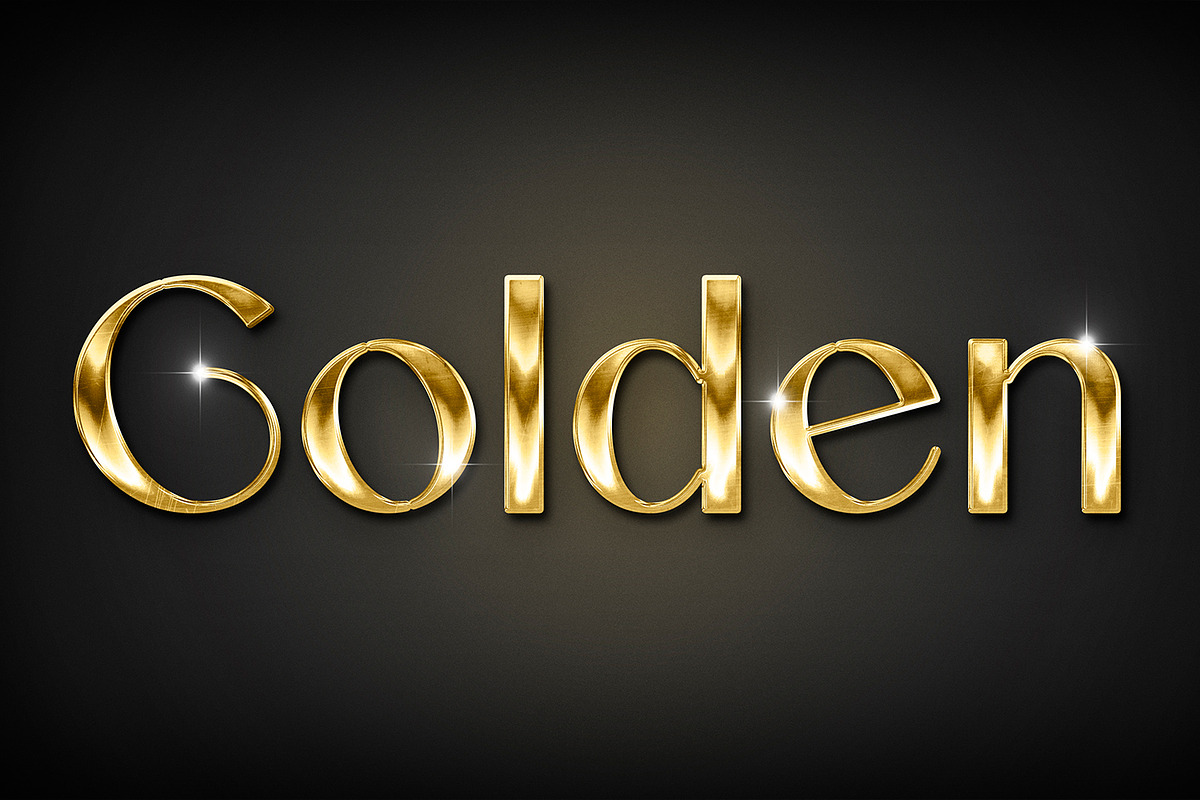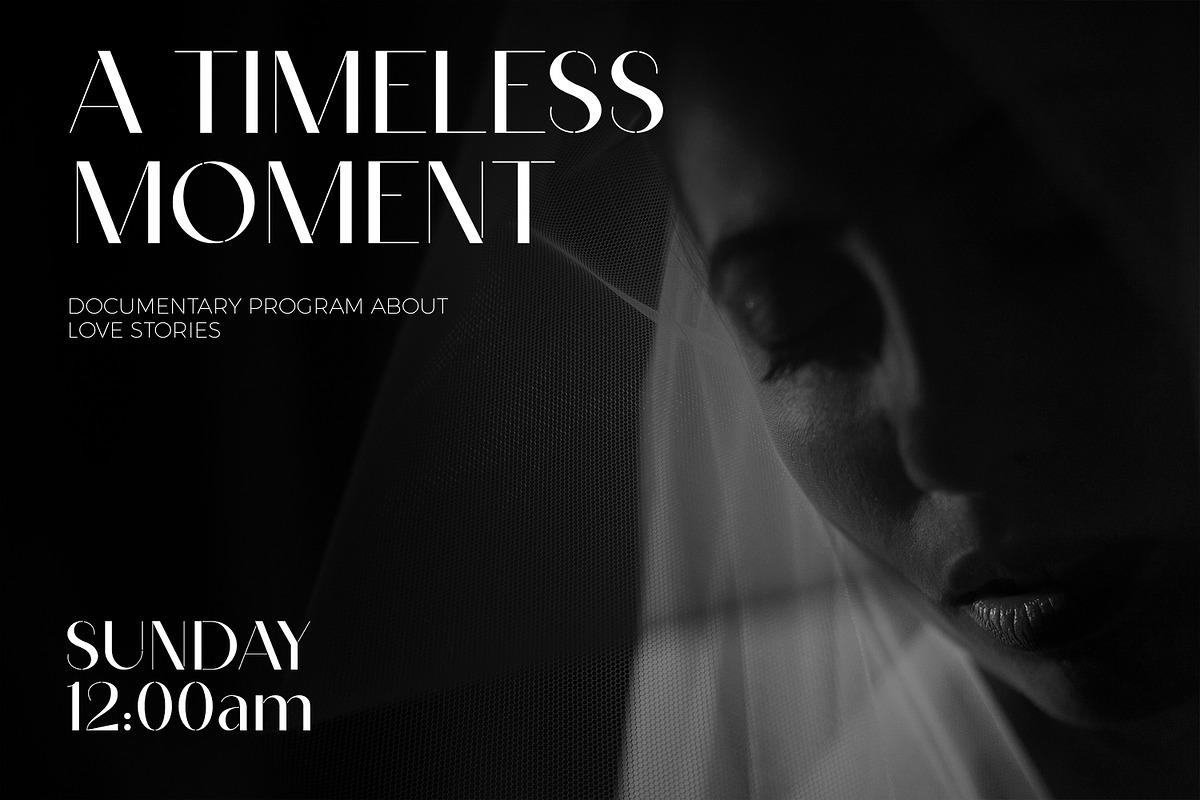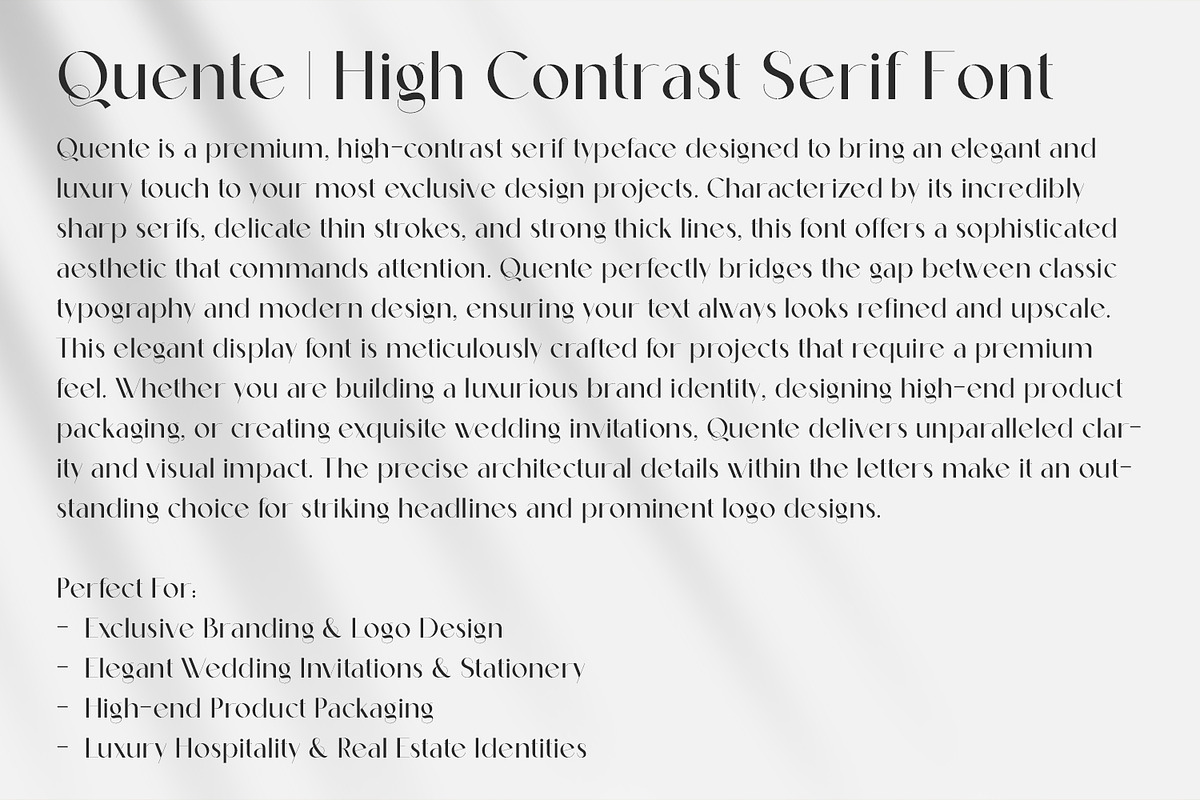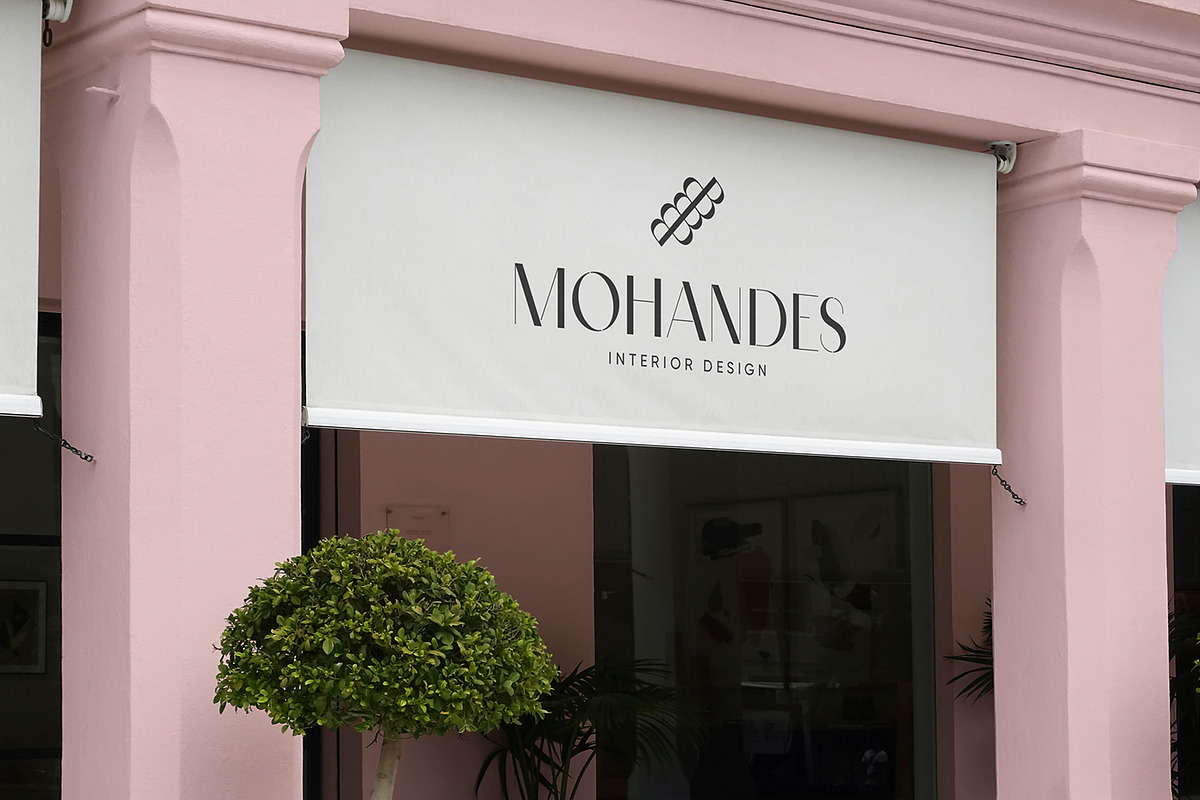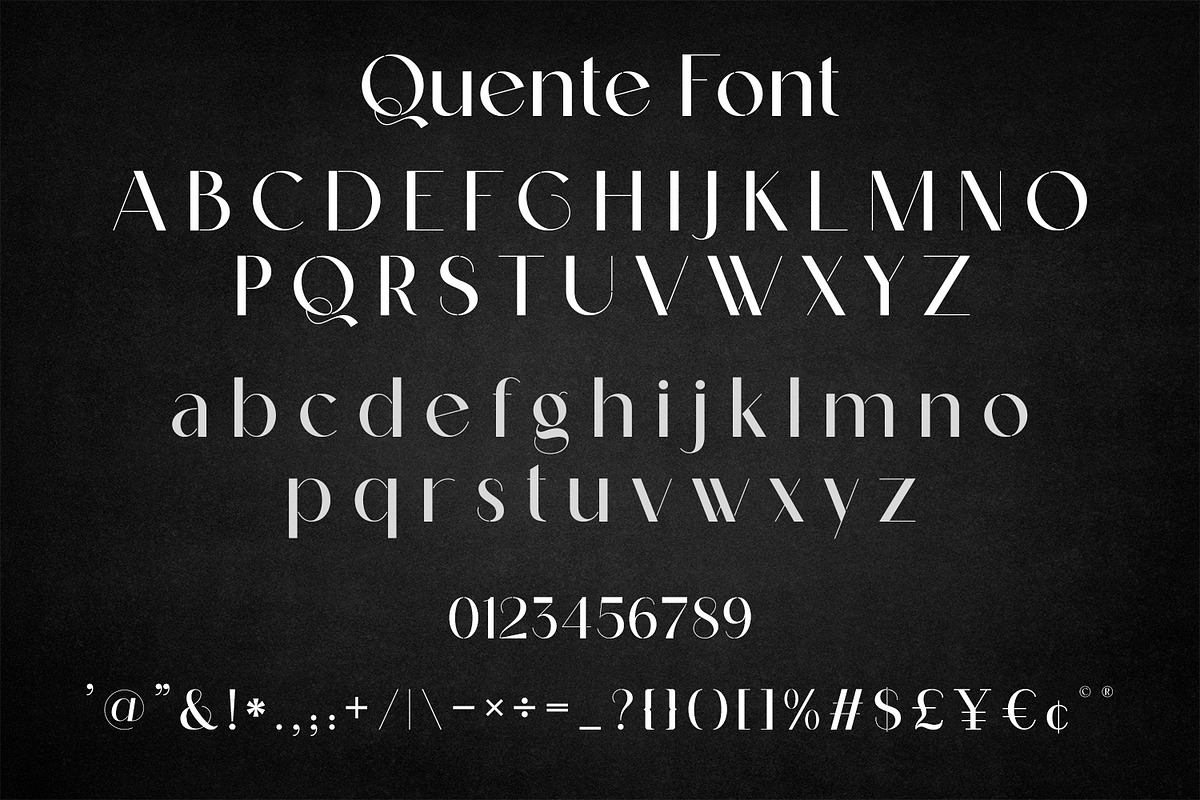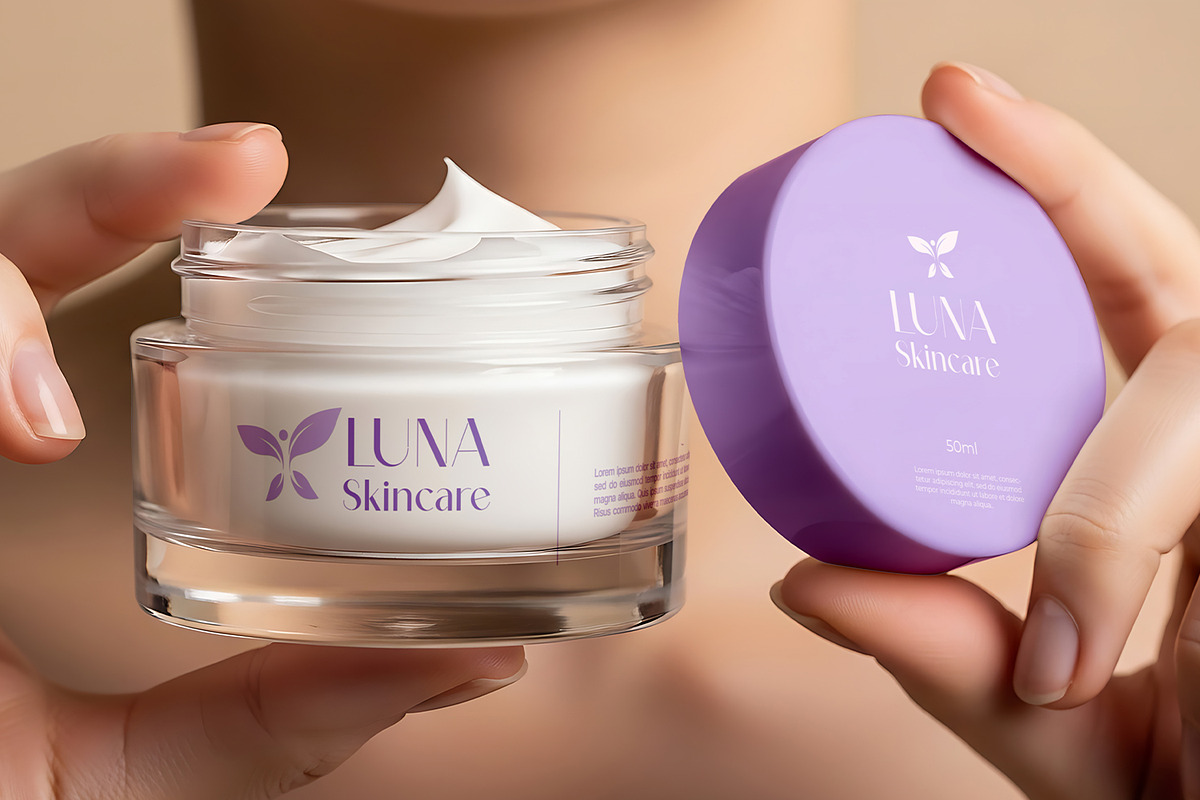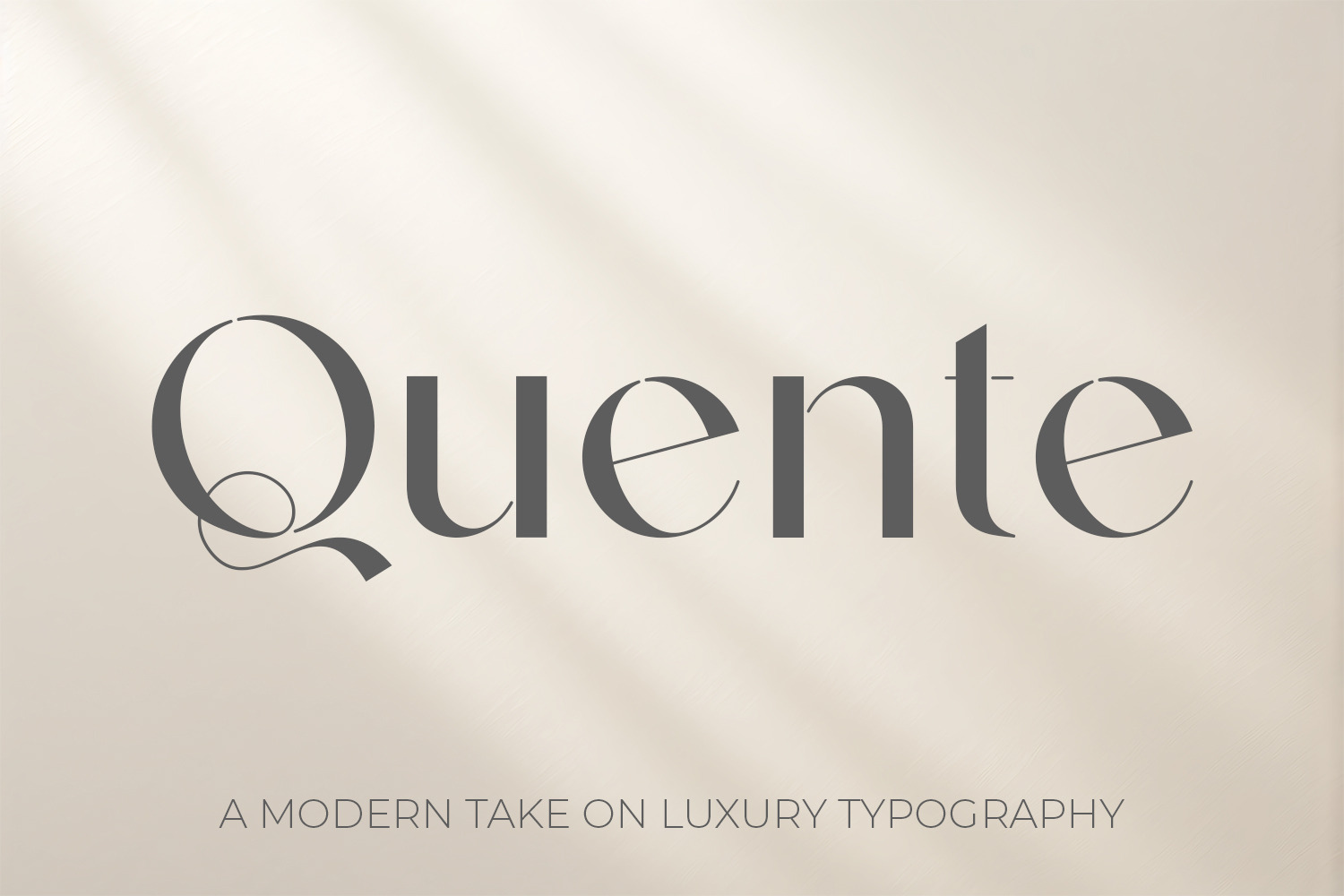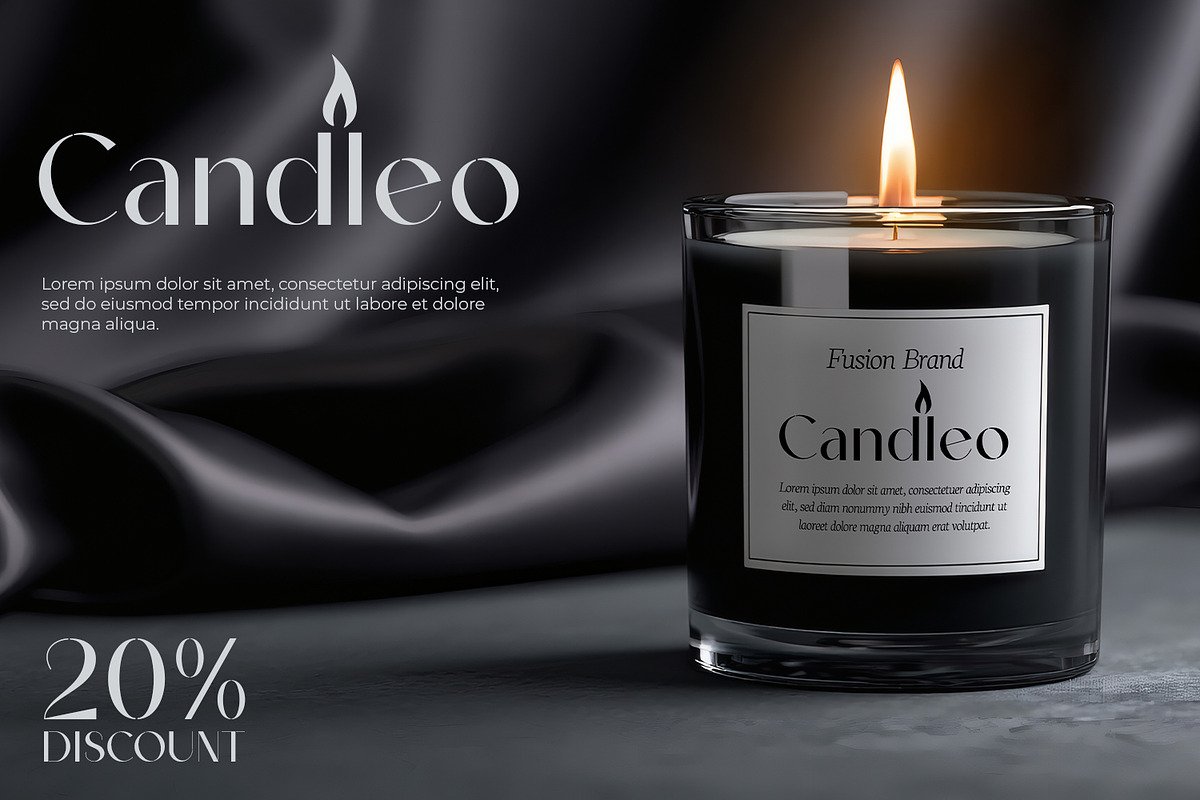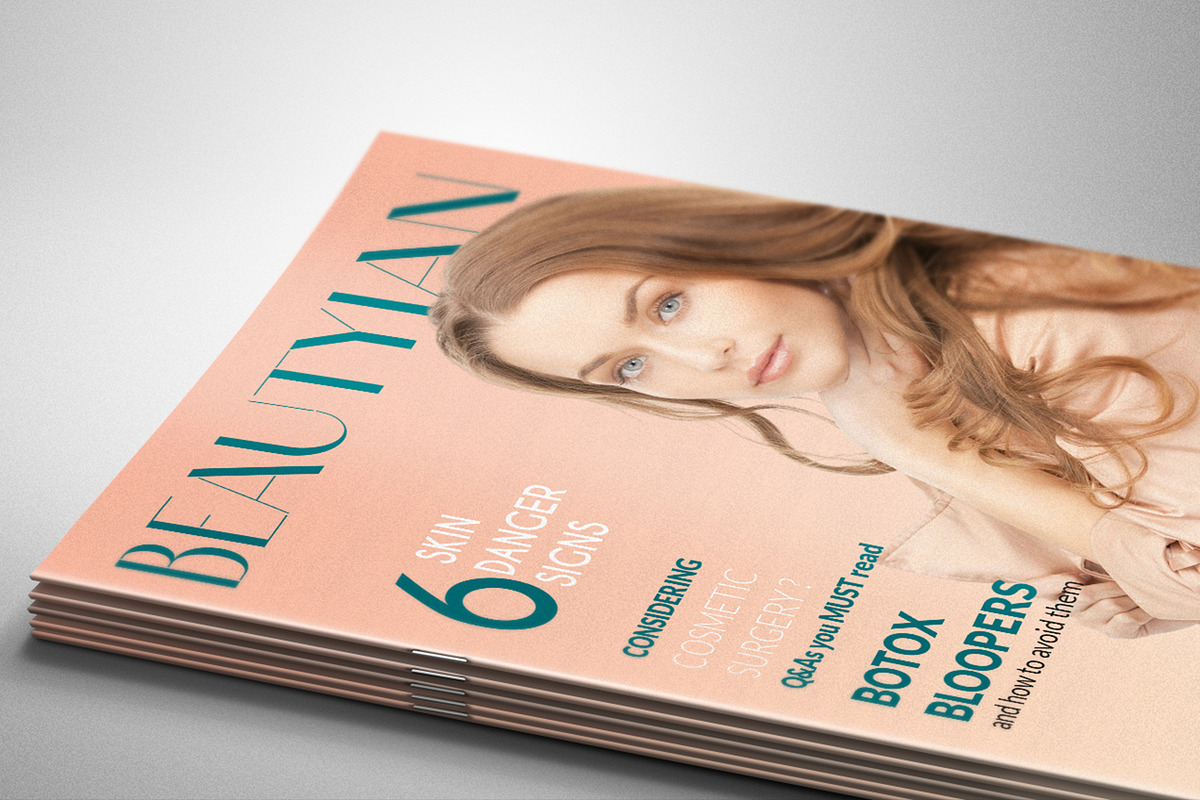
Quente - Luxury Elegant Serif Font
Quente is a truly luxurious and highly elegant serif font, meticulously designed to elevate your creative projects. Featuring a stunning high contrast between its delicate thin lines and bold thick strokes, this typeface delivers a premium and sophisticated aesthetic. Its sharp, precise serifs make it a standout choice for designers looking to add a touch of exclusivity and modern class to their work.
Perfect for both professional graphic designers and crafters, Quente shines brilliantly in a wide variety of applications. It is the ultimate choice for upscale branding, stunning logo designs, romantic wedding invitations, high-end packaging, and chic editorial layouts. Whether you are designing for a luxury cosmetics brand, an elegant boutique, or creating beautiful stationery, Quente will give your designs a flawless, timeless finish.